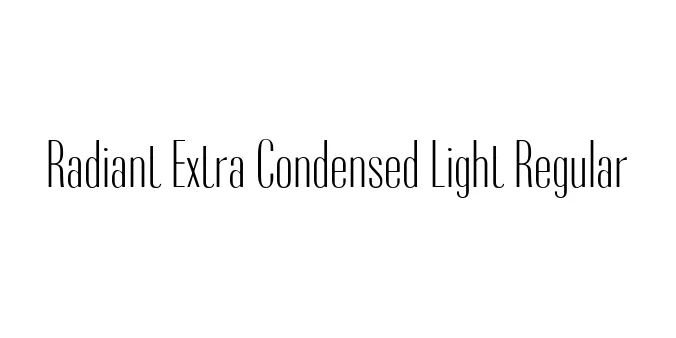
Radiant Extra Condensed Light Regular
Designed by Robert Hunter Middleton
Radiant Extra Condensed Light Regular was originally designed by the prolific typographer Robert Hunter Middleton for the Ludlow Typograph Company in 1940. This typeface represents a unique intersection between the humanist sans-serif tradition and the high-contrast elegance typically reserved for serif fonts. Its distinguishing features include flared terminals and a vertical stress, giving it a sophisticated, calligraphic quality that separates it from the more clinical geometric sans-serifs of the same era.
The Extra Condensed variant is specifically engineered for high-impact verticality, making it an essential tool for designers working with limited horizontal space. Because of its light weight and slender profile, it exudes a sense of luxury and refinement. Throughout the mid-20th century, the Radiant family became a staple in fashion journalism and cinematic titling, and it continues to be favored today for editorial layouts that require a touch of classic Art Deco charm combined with modern readability.
Radiant Extra Condensed Light Regular Best Uses
Ideal for tall, striking headlines and pull quotes in high-end magazines.
Perfect for luxury brand logos and sophisticated promotional materials.
Works exceptionally well for vertical typography and cinematic posters.
Great for maximizing impact in narrow column layouts and sidebars.